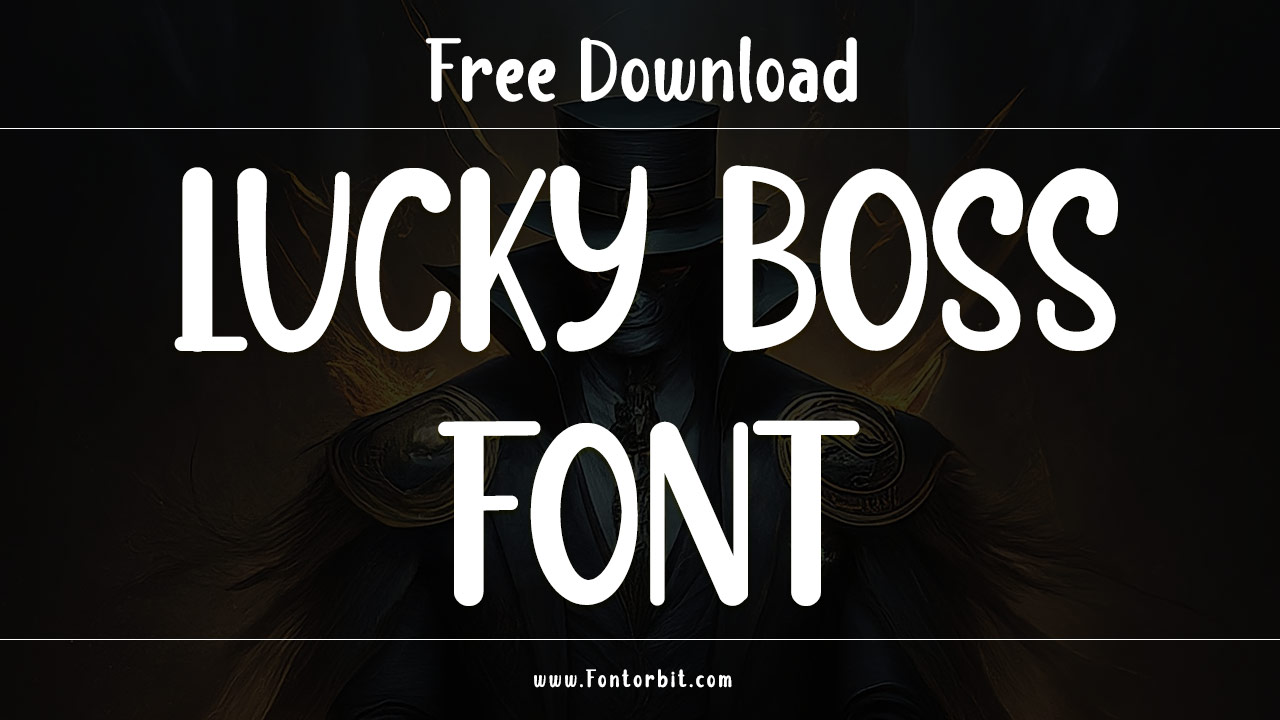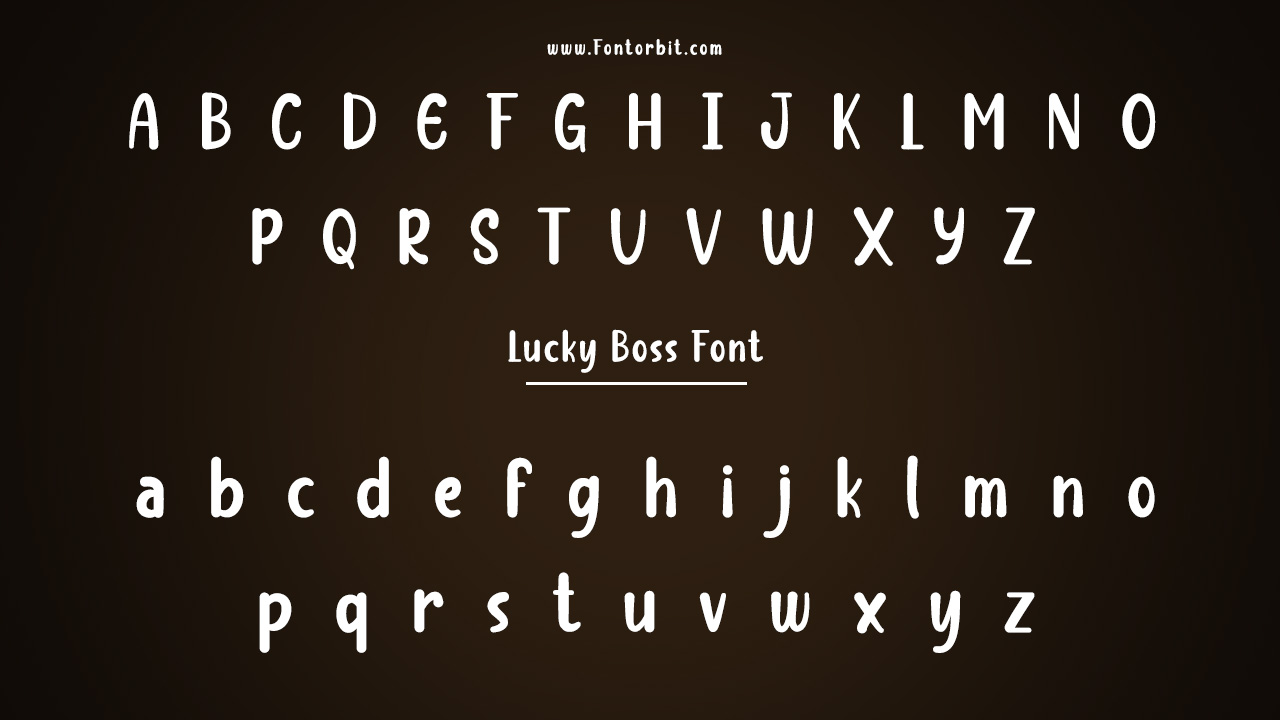
Lucky Boss Font is a decorative typeface designed by RantautypeStudio. Known for its bold, cartoon-inspired design, it’s an excellent choice for titles, logos, and display projects. This font adds a fun and creative vibe to your designs, making it ideal for both personal and professional use. Lucky Boss Font is free for personal use and supports a range of design software and platforms. To use it commercially, you must purchase a license from the designer.
Type Of The Lucky Boss Font (Font Family)
Lucky Boss Font falls under the fancy decorative fonts category. It features a bold, playful style perfect for modern fonts and display fonts. This font family includes one primary style:
- Lucky Boss Regular
Lucky Boss Font is versatile and well-suited for a variety of projects. Some common use cases include:
- Posters and Titles: Create bold and engaging headlines for posters and banners.
- Logo Design: Perfect for crafting logos that need a modern or decorative flair.
- Letterheads and Stationery: Add a unique touch to letterheads and email designs.
- Crafty Ideas: Ideal for DIY projects, gift cards, and creative stationery.
- Web and Social Media Graphics: Great for banners, websites, and display designs.
- Merchandise: Use it for printed materials like t-shirts, brochures, and flyers.
Lucky Boss Font is a decorative, modern font that combines creativity and functionality. Whether you’re designing bold titles, unique logos, or engaging social media posts, this font delivers a distinctive look. Its compatibility across platforms and support for personal use makes it a valuable asset for designers. For commercial projects, ensure to obtain the appropriate license to unlock its full potential.
The Lucky Boss Font is versatile and works well in numerous creative projects. It’s ideal for designing posters, logos, and stationery and enhancing websites and social media graphics. Its bold and stylish design also makes it suitable for branding, packaging, and even video titles. Whether you’re working on a modern or vintage-themed project, Lucky Boss Font adds a professional and artistic flair.